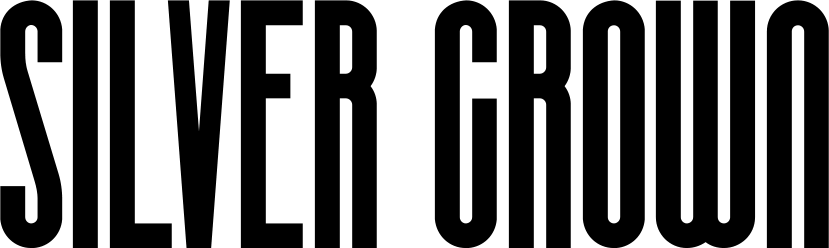
Silver Crown Font
Today we have a new ligature font for you. This font is called Silver Crown and it is perfect for giving a nostalgic feeling to the reader and making eye-catching titles.
This one is an all-caps font that is perfect for movie and book headlines, commercials, fashion blogs, and magazines. Please note that this font only contains major characters.
Silver Crown – Ultra Condensend font and Minimalis Character, It’s Perfect for logo, name card, magazin layout,headers, or oven large scale artwork